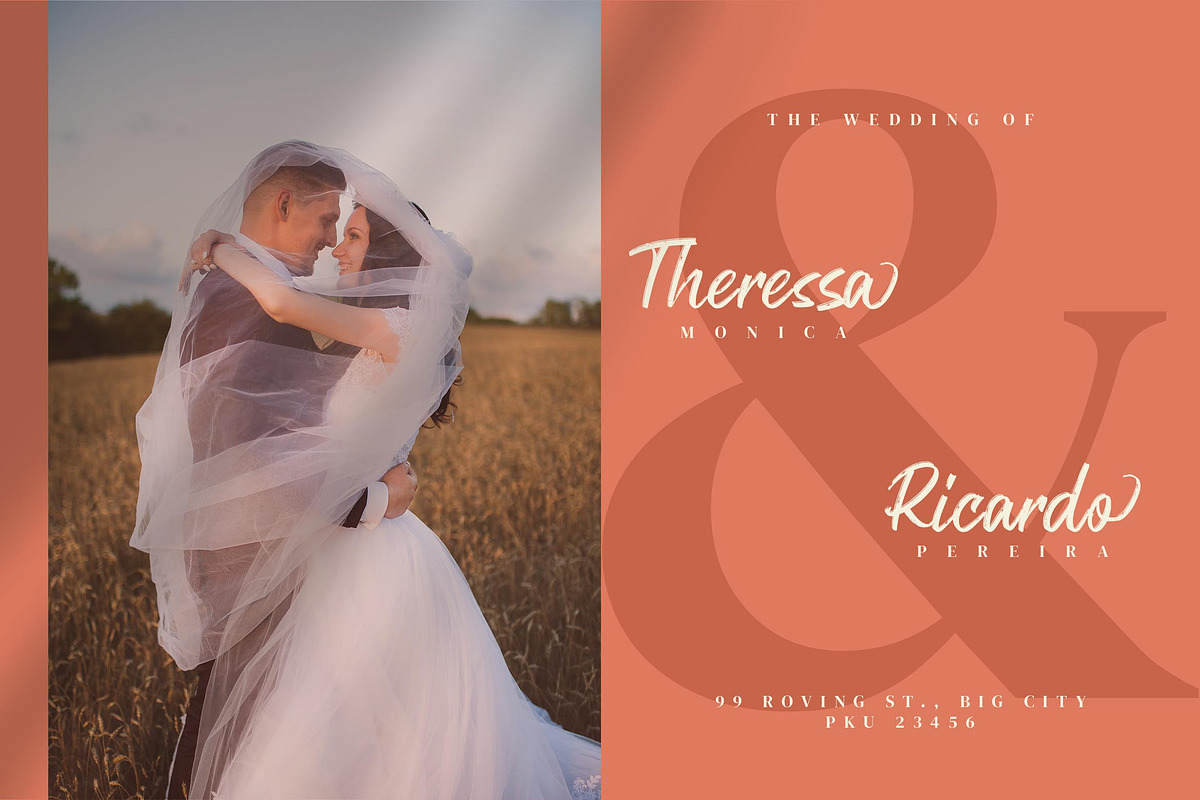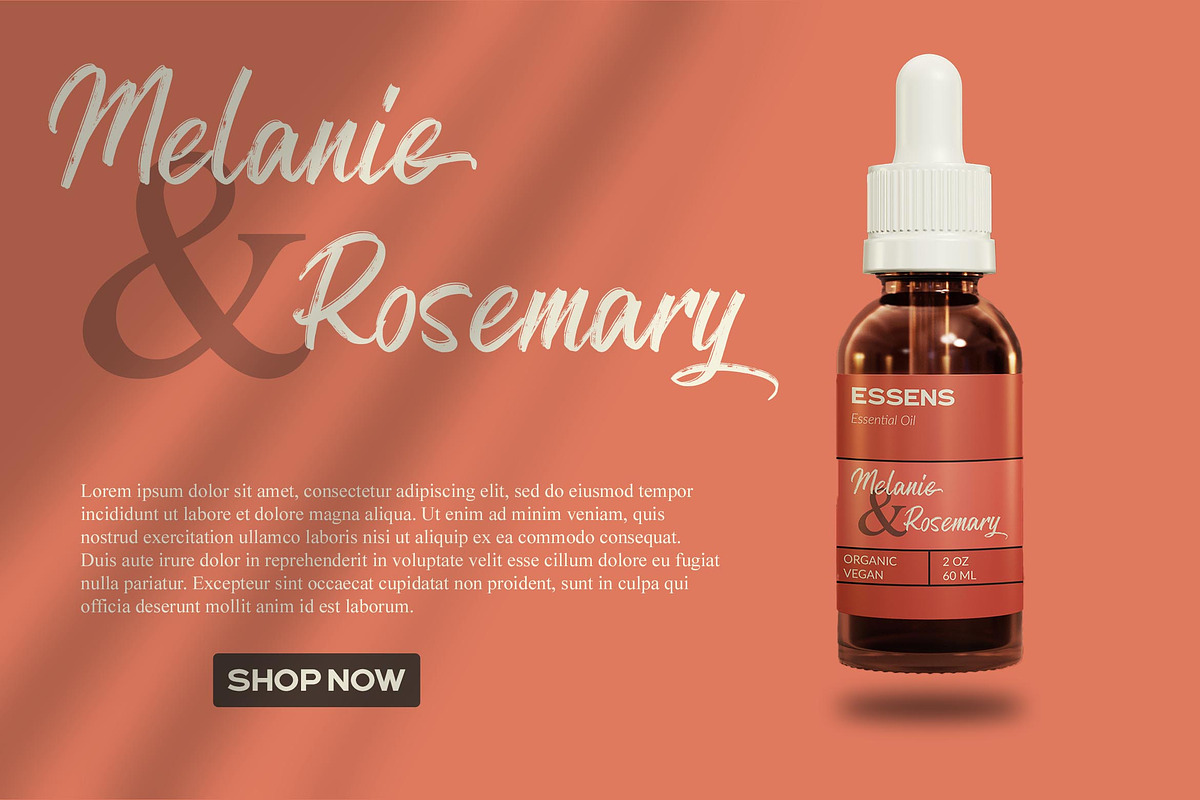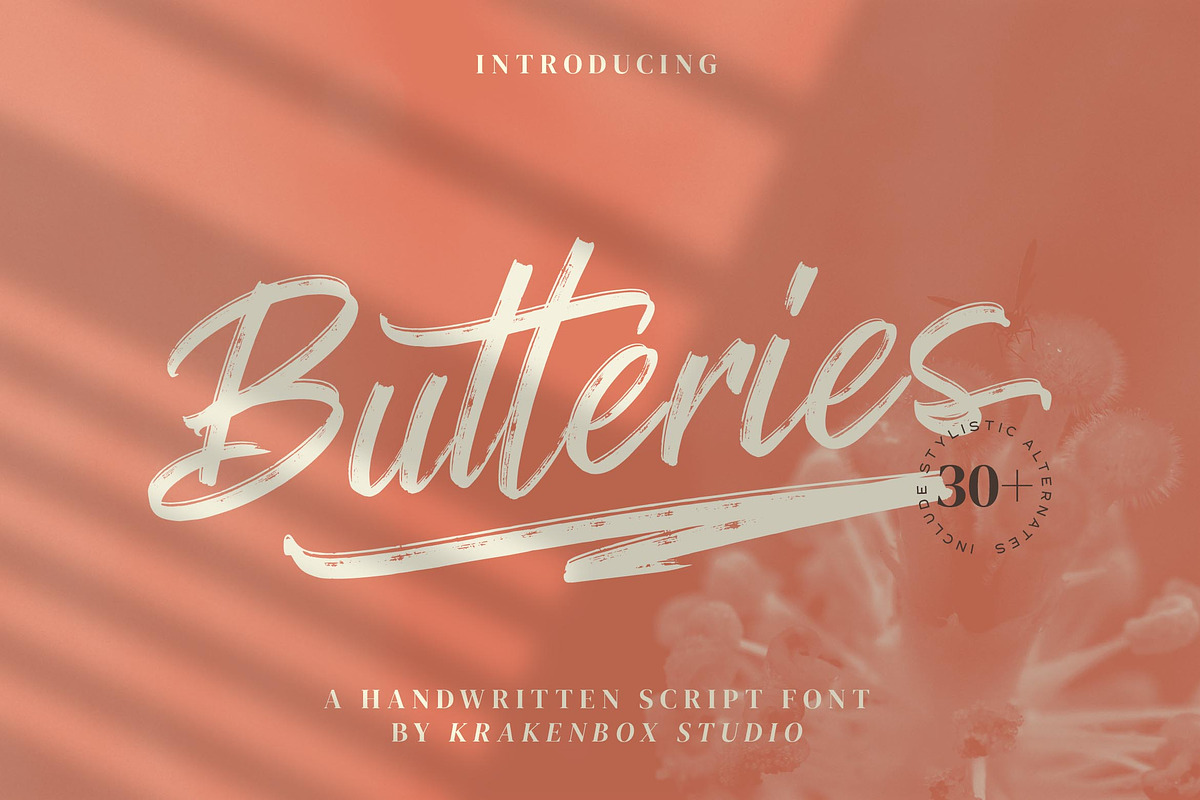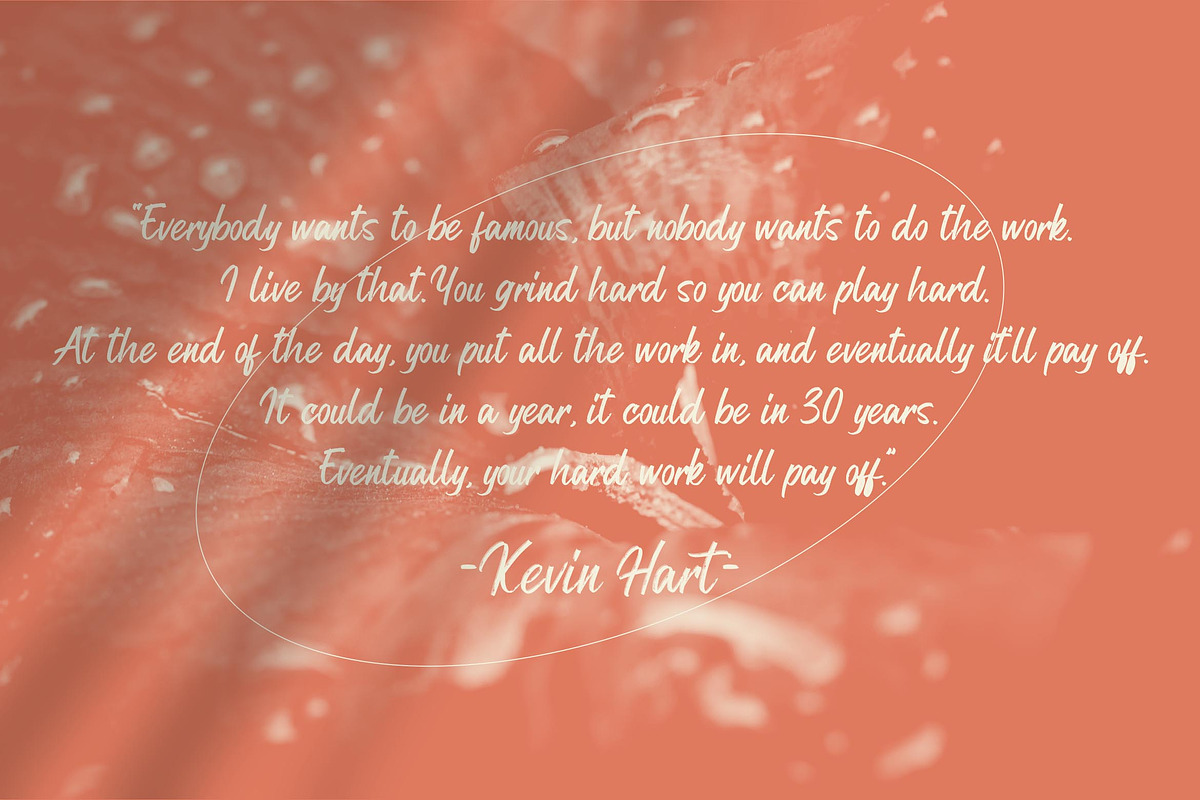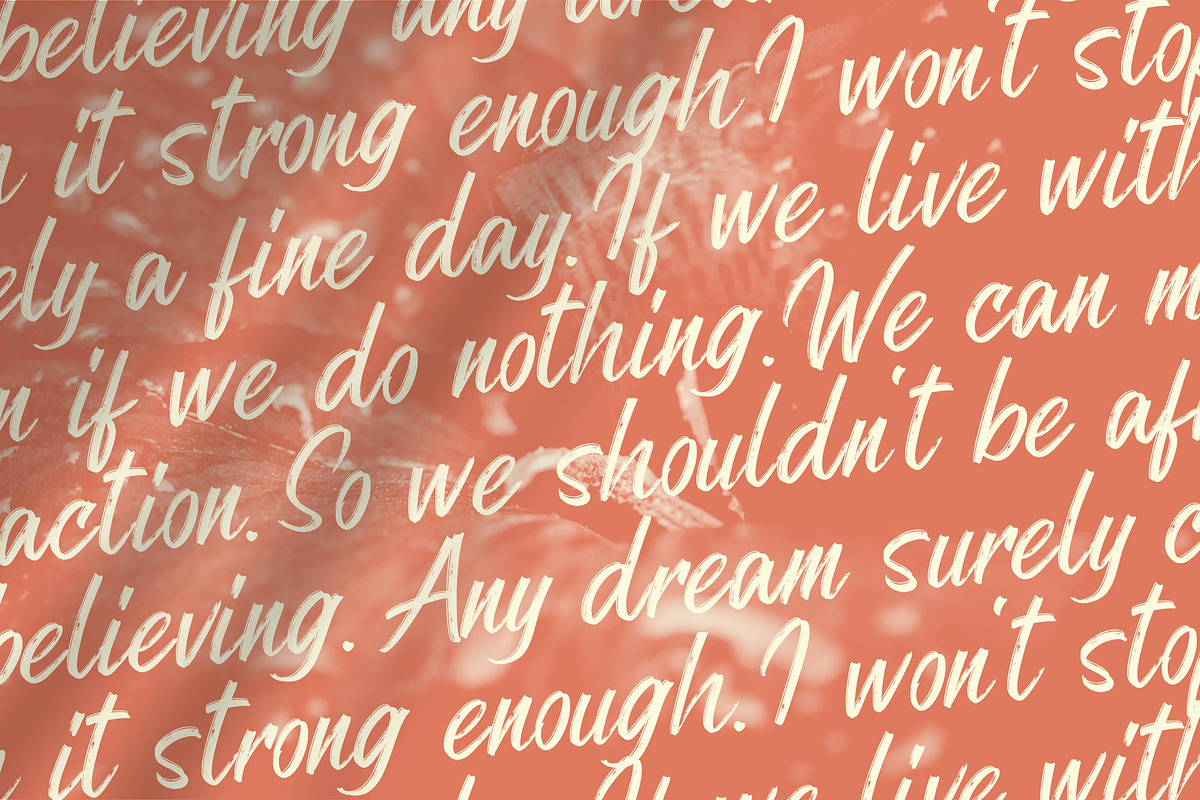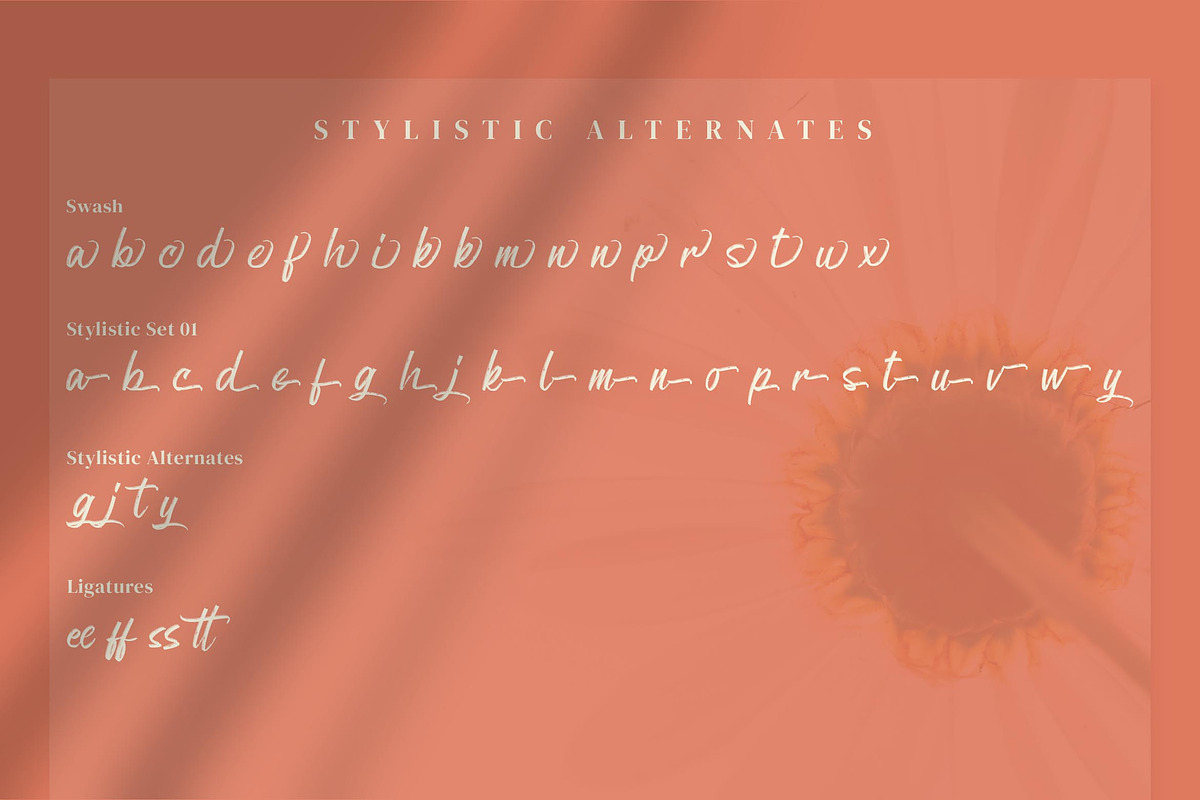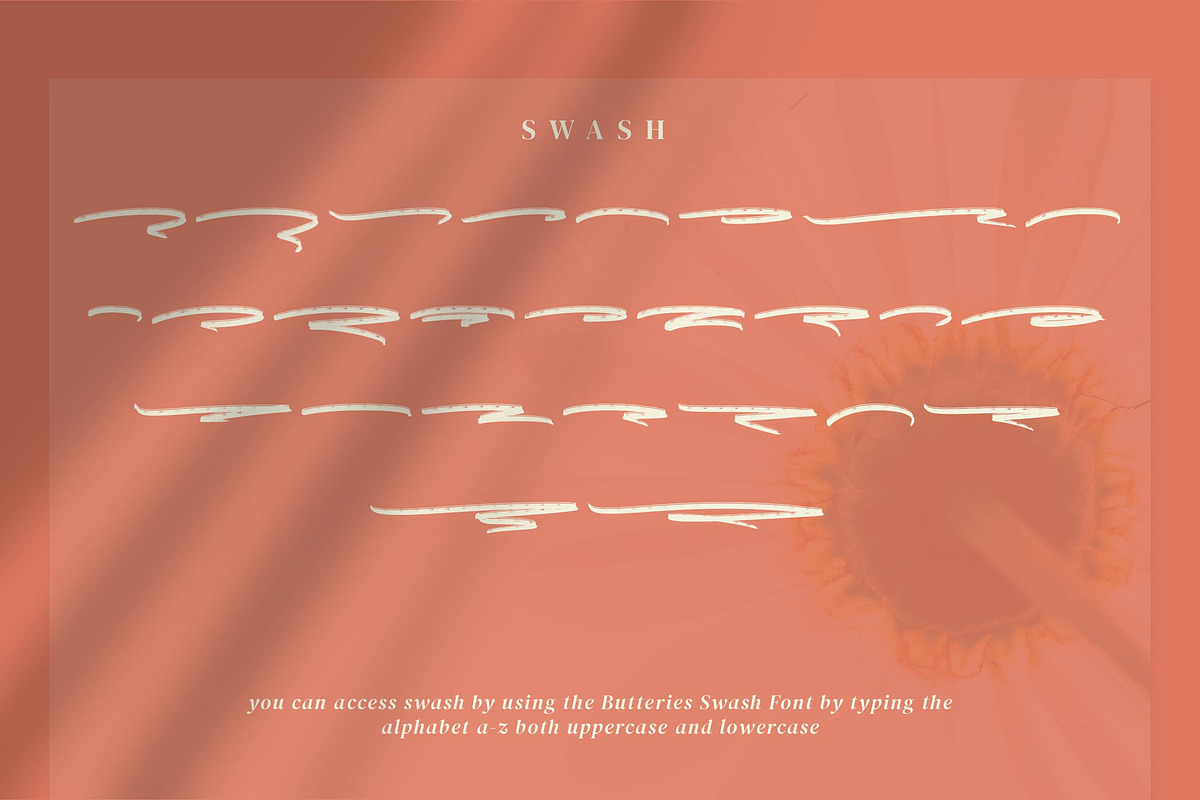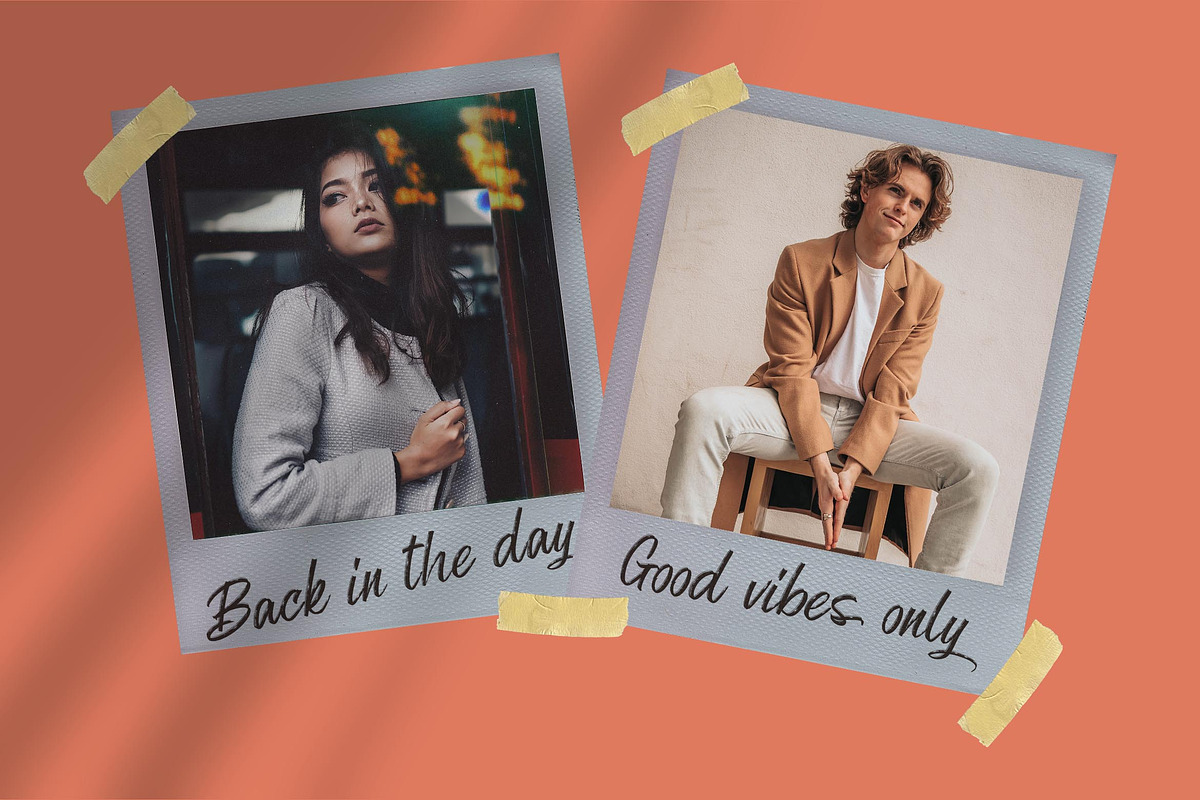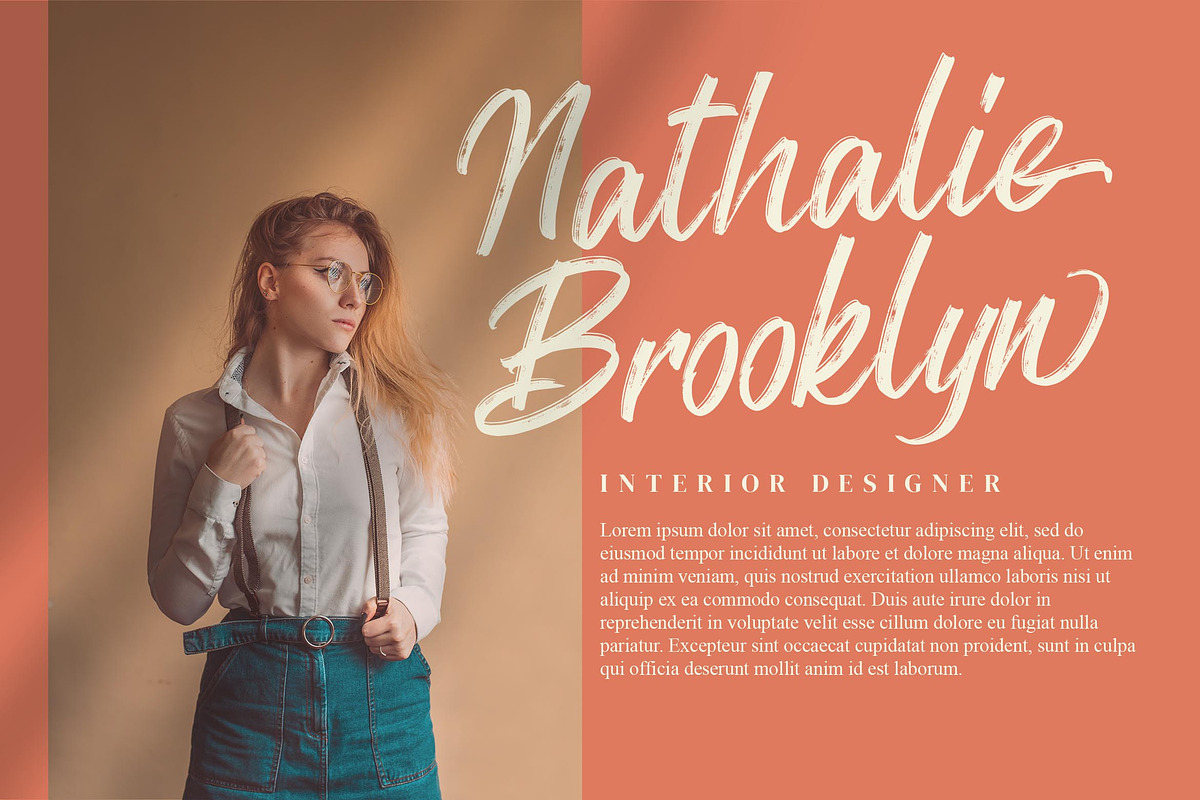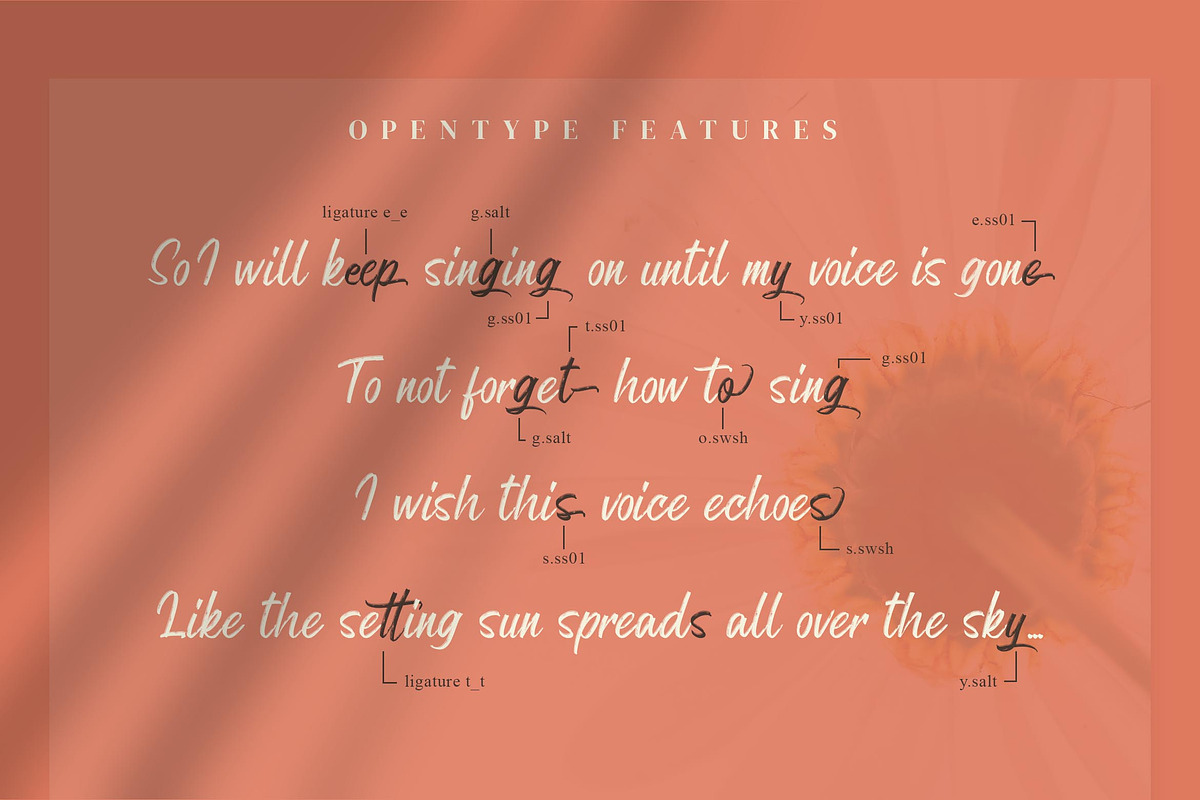
Butteries - Handwritten Brush Font
Introducing Butteries - Handwritten Brush Font by KrakenBox
Butteries is a fashionable sophisticated handwritten brush script with its own unique curves and an elegant inky flow. Its elegant, classy, and modern look makes it a fantastic choice for fashion, signature, album covers logos and more. This font is PUA encoded which means you can access all of the amazing glyphs and ligatures with ease!
Butteries is best for:
- logos, branding, & Signatures.
- Flyers, Album cover, Magazine, & Advertisements.
- Website design , design blogs, & fashion.
- Quote graphics for social media.
- and also it works great for other projects.
- 3 Fonts style, Regular, and Swash.
- Character Set (Uppercase and Lowercase).
- Numerals and Punctuation (OpenType Standard).
- Accents (Multilingual characters).